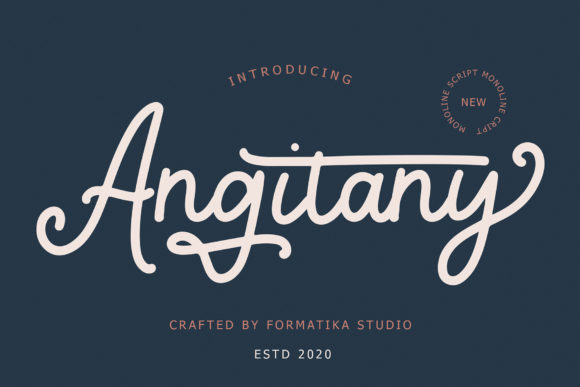
The Angitany Font: A Stylish and Delicate Handwritten Delight
I’ll never forget the design project that led me to discover the Angitany font. I was working on a branding project for a new boutique client, and I was determined to find the perfect font to capture their elegant and sophisticated vibe. After hours of scrolling through font libraries and testing out different options, I stumbled upon Angitany – and it was love at first sight! 💕
With its clean, thin, and smooth lines, Angitany instantly elevated my design and helped me deliver a final product that exceeded my client’s expectations. If you’re a designer, crafter, or creative hobbyist looking for a stylish and versatile font to add to your toolkit, you’re in luck! In this article, we’ll dive into the world of Angitany and explore its features, uses, and alternatives.
An Honest Review of Angitany Font
What I Love About Angitany ✨
- ✅ Delicate and elegant handwritten style that’s perfect for a variety of design projects
- ✅ Clean and smooth lines that make it easy to read and visually appealing
- ✅ Highly versatile and can be used for both digital and print projects
- ✅ Supports OpenType features, glyphs, and stylistic alternates for added customization
While Angitany is an amazing font, it’s not without its limitations. Here are a few things to keep in mind:
- ⚠️ May not be suitable for very large or bold designs, as it can lose its delicate charm
- ⚠️ Limited availability of certain characters or symbols, so be sure to test it thoroughly
The Story Behind Angitany Font
Angitany was designed by a talented typographer who wanted to create a font that captured the elegance and sophistication of handwritten script. With its delicate lines and smooth curves, Angitany is the perfect choice for designers who want to add a touch of refinement to their projects.